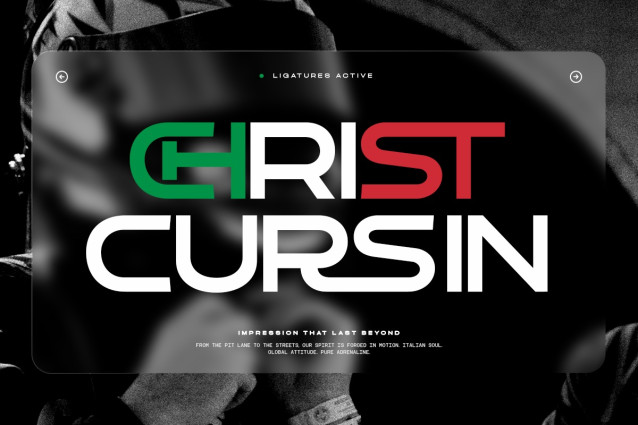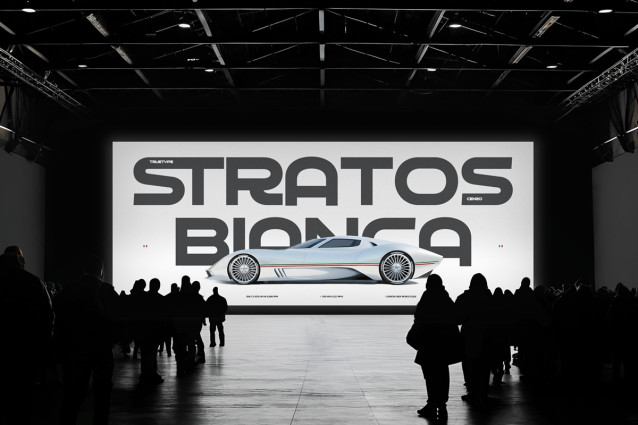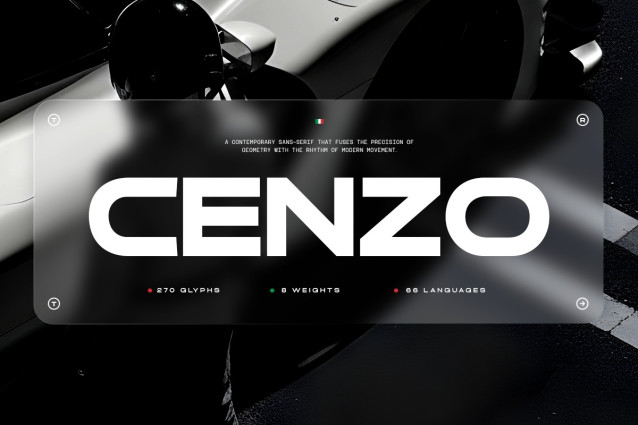
Cenzo Font
Cenzo Font a sense of strength, clarity, and futuristic appeal but I wanted to reinterpret them in a way that feels sharper, more dynamic, and perfectly suited for today’s design landscape.
Subtle cuts and balanced proportions give TRT CENZO its distinctive, forward-looking personality while maintaining strong readability.
The result is TRT CENZO a modern and futuristic sans serif typeface that blends minimalism with bold visual impact. Designed for branding, display titles, interfaces, and editorial projects, it brings a sleek, contemporary edge to any layout.
TRT CENZO also includes a selection of alternate characters and standard ligatures, allowing designers to explore creative variations and achieve unique typographic expressions with ease.